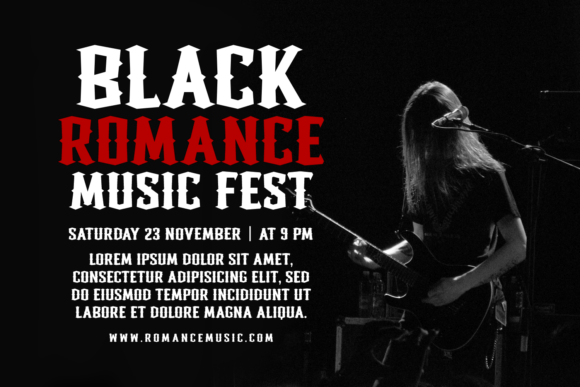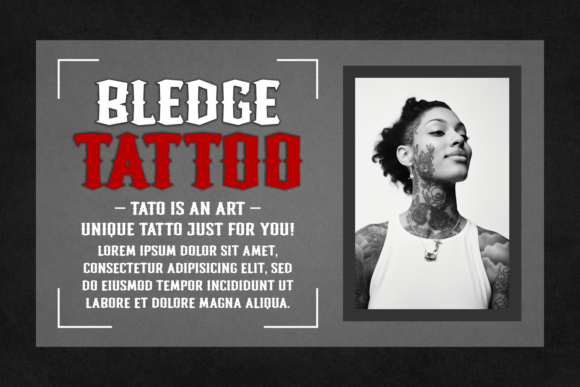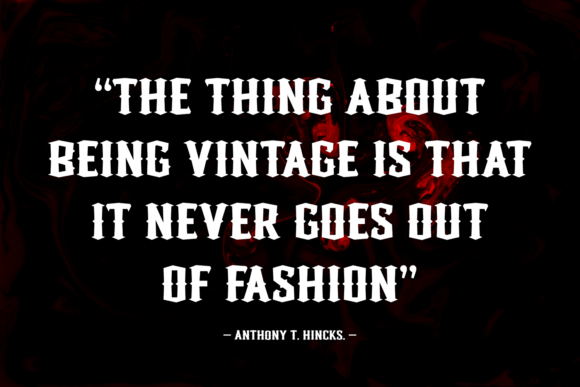
Bledge Mistic Font: A Bold Blackletter Font for Dramatic Designs
In the world of typography, fonts play a crucial role in conveying the tone and personality of a design. For designers and crafters looking for a bold and striking font, Bledge Mistic is an excellent choice. This bold blackletter font features sharp, pointy edges that give it a dramatic and classic look, making it perfect for designs that need a strong, timeless feel.
The Unique Style of Bledge Mistic
Bledge Mistic’s unique style combines traditional lettering with a modern twist, making it eye-catching and memorable. The font’s bold and sharp edges give it a striking appearance that is sure to grab attention. Whether you’re designing a logo, poster, or packaging, Bledge Mistic is an excellent choice for adding a touch of drama and sophistication to your work.
Key Features of Bledge Mistic Font
- Bold Blackletter Style: Bledge Mistic features a bold blackletter style that is perfect for designs that need a strong, classic feel.
- Sharp, Pointy Edges: The font’s sharp, pointy edges give it a striking and dramatic look that is sure to grab attention.
- Unique Style: Bledge Mistic’s unique style combines traditional lettering with a modern twist, making it eye-catching and memorable.
- Perfect for Dramatic Designs: Whether you’re designing a logo, poster, or packaging, Bledge Mistic is an excellent choice for adding a touch of drama and sophistication to your work.
Uses of Bledge Mistic Font
Bledge Mistic is a versatile font that can be used in a variety of design projects, including:
- Logo Design: Bledge Mistic’s bold and striking appearance makes it perfect for logo design.
- Poster Design: The font’s dramatic look is sure to grab attention, making it perfect for poster design.
- Packaging Design: Bledge Mistic’s unique style and bold appearance make it an excellent choice for packaging design.
- T-Shirt Design: The font’s bold and striking appearance makes it perfect for t-shirt design.
Why Choose Bledge Mistic Font?
There are many reasons why designers and crafters choose Bledge Mistic font for their design projects. Here are a few:
- Unique Style: Bledge Mistic’s unique style sets it apart from other fonts, making it a great choice for designers looking for something new and different.
- High-Quality Design: The font is designed with high-quality craftsmanship, ensuring that it looks great in any design project.
Tips for Using Bledge Mistic Font
Here are a few tips for using Bledge Mistic font in your design projects:
- Use it Sparingly: Bledge Mistic’s bold and striking appearance can be overwhelming if used too much. Use it sparingly to add emphasis to your design.
- Pair it with Other Fonts: The font pairs well with other fonts, making it a great choice for designs that require multiple fonts.
- Experiment with Colors: Bledge Mistic looks great in a variety of colors, so don’t be afraid to experiment and find the perfect color for your design.
In conclusion, Bledge Mistic font is a bold and striking blackletter font that is perfect for designs that need a strong, classic feel. Its unique style combines traditional lettering with a modern twist, making it eye-catching and memorable. With its high-quality design, ease of use, and affordability, Bledge Mistic is an excellent choice for designers and crafters looking to add a touch of drama and sophistication to their work.